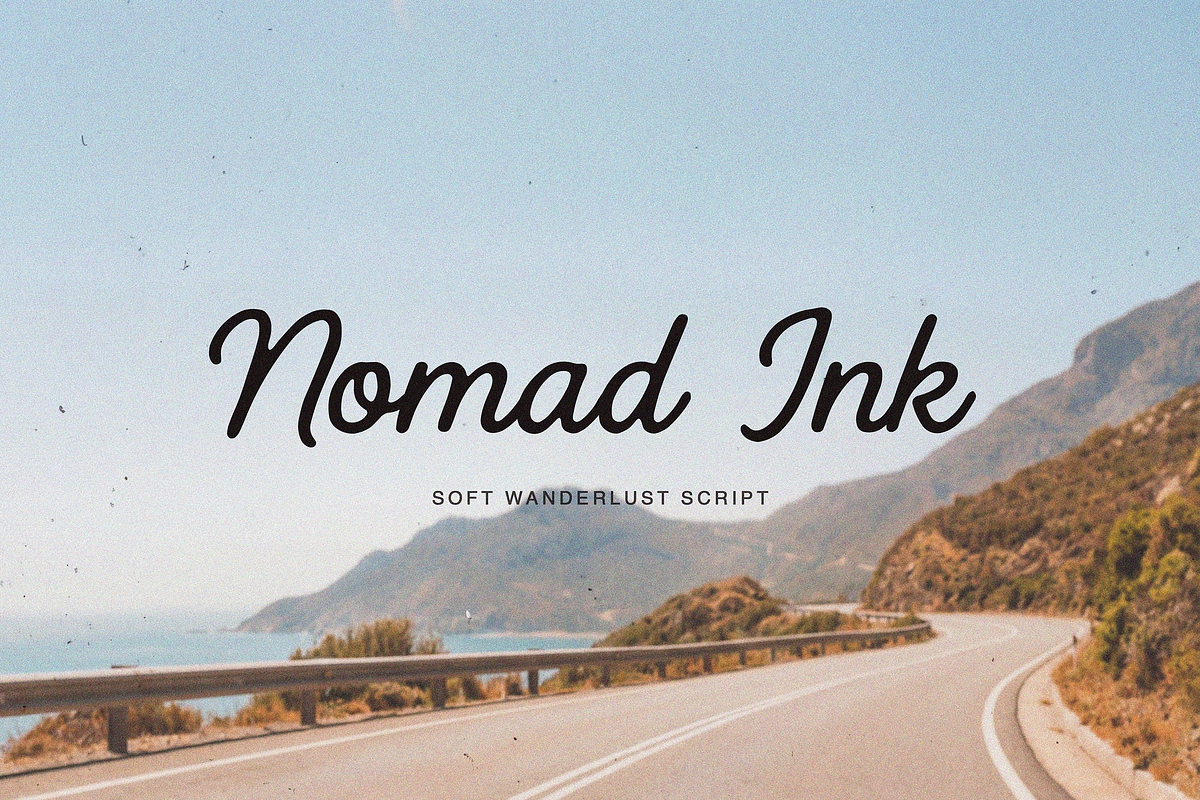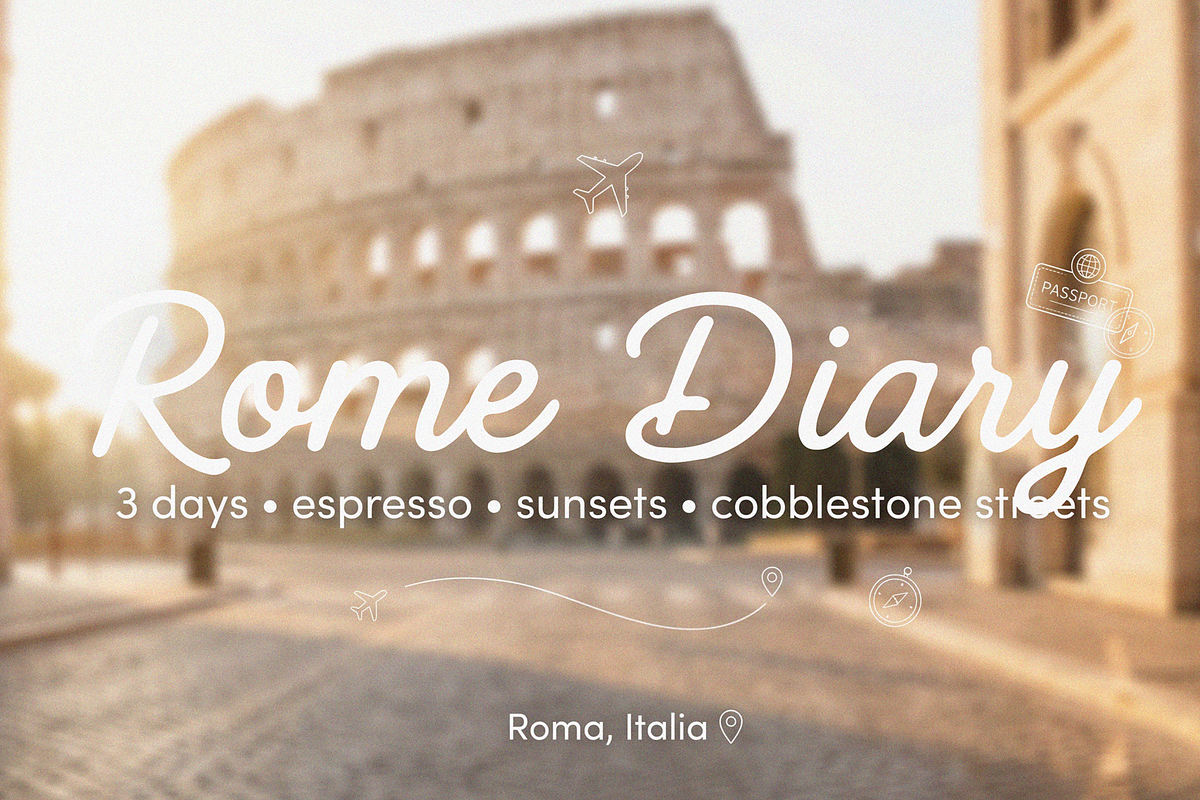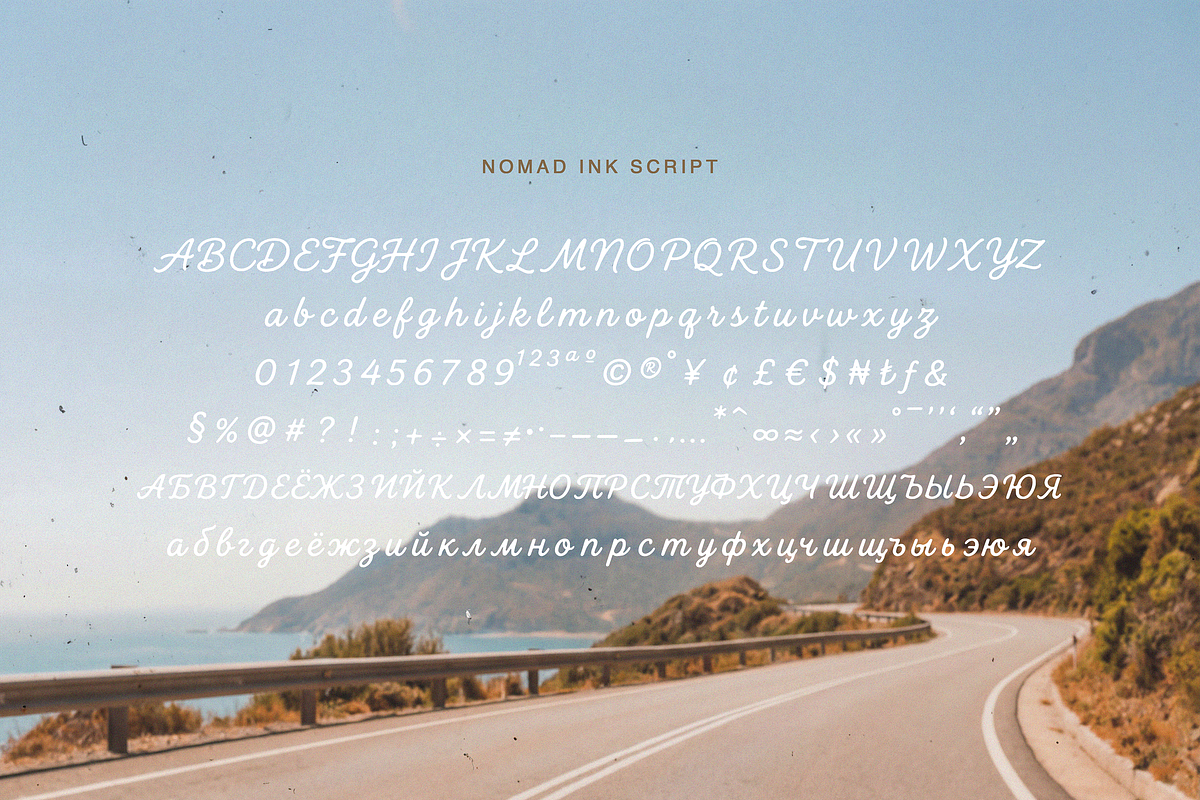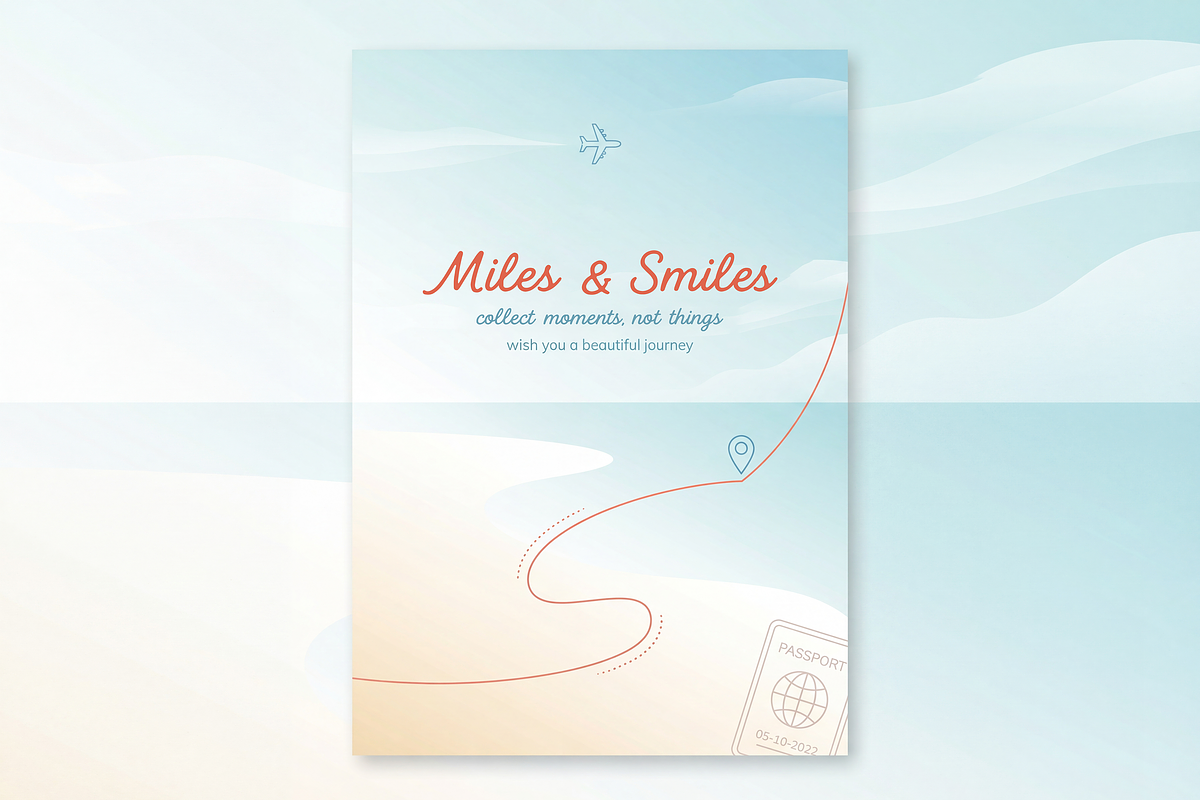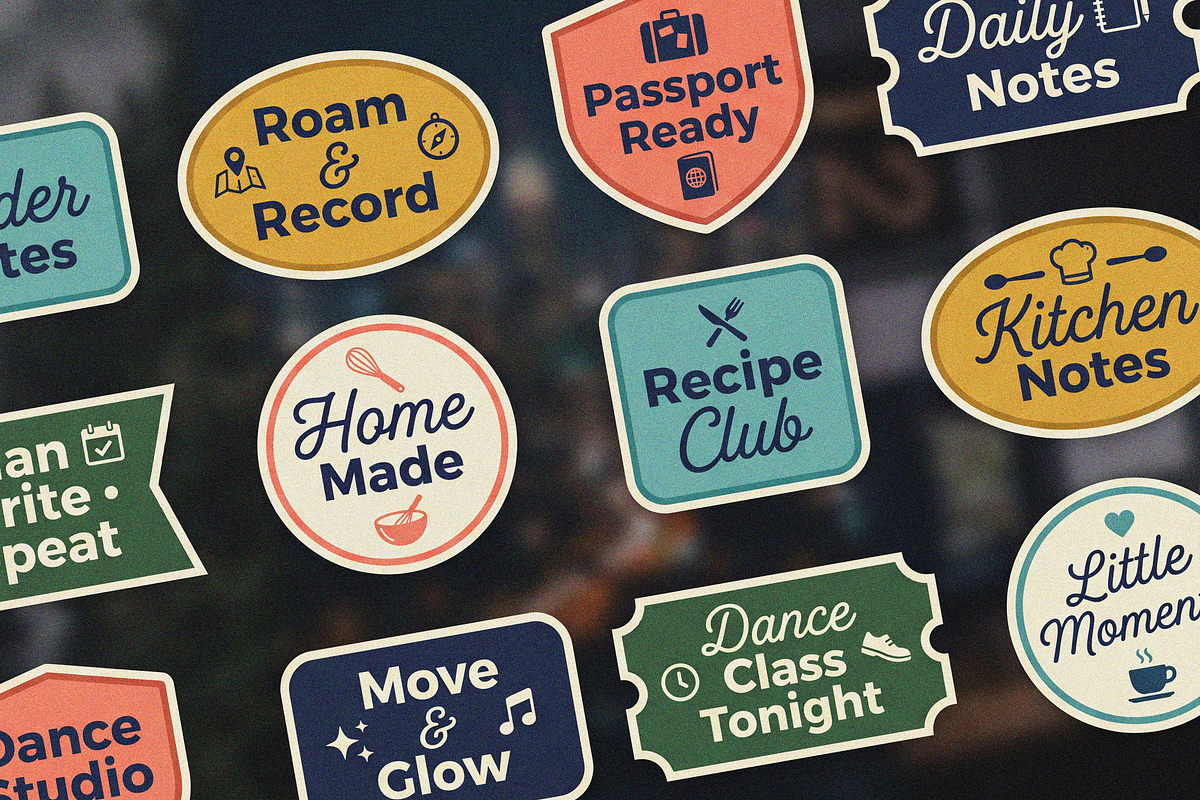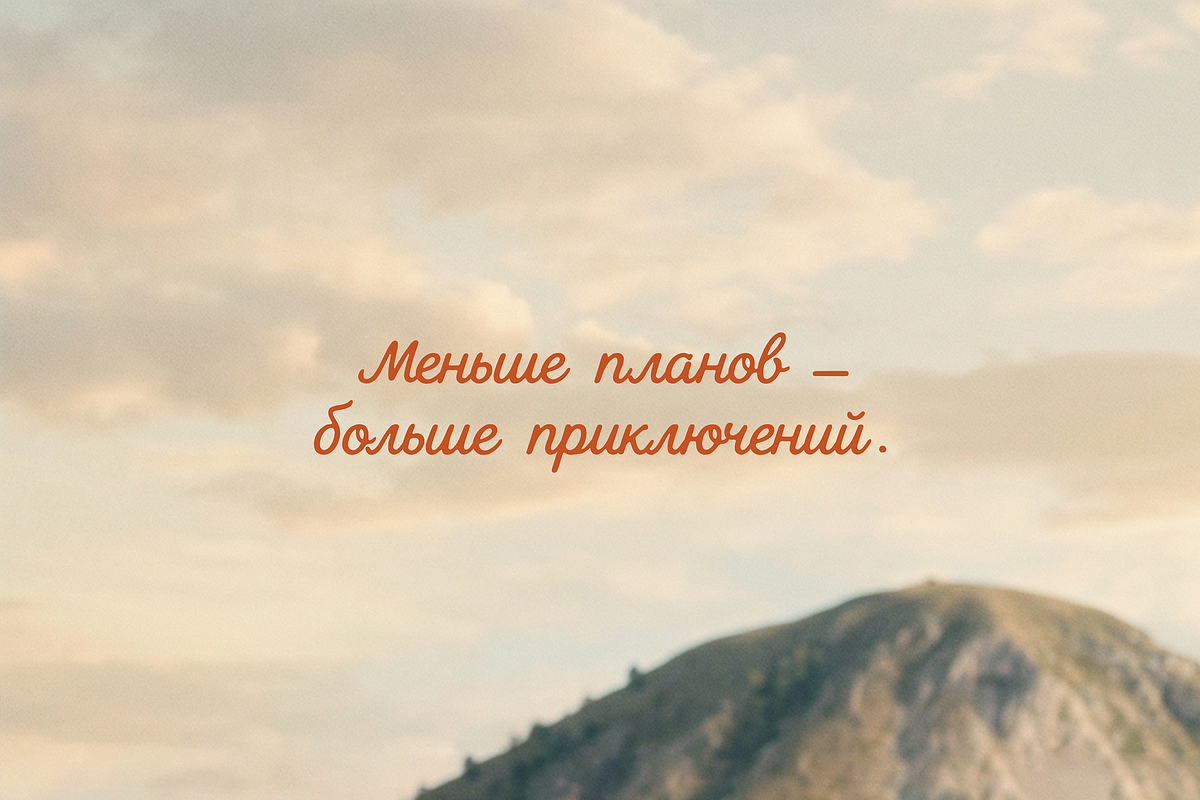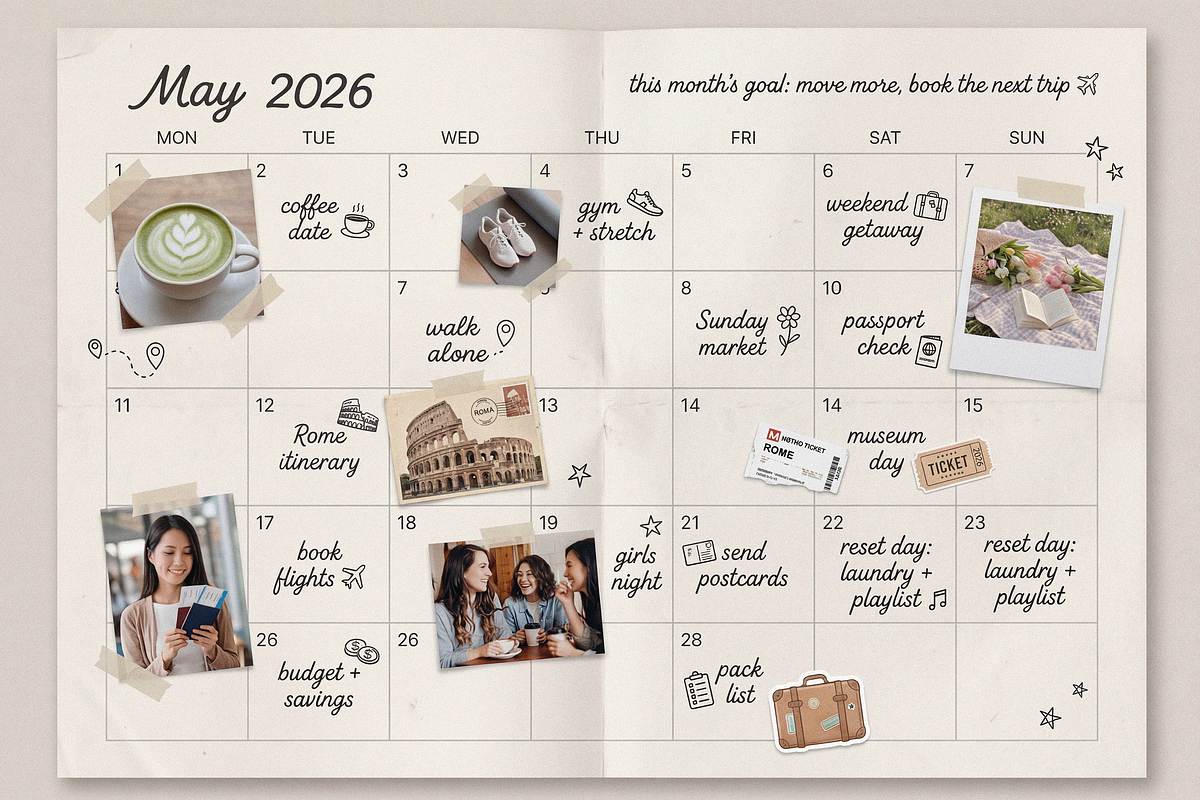
Nomad Ink — Soft Wanderlust Script
Nomad Ink is a modern handwritten script font inspired by freedom, travel, and spontaneous moments. Light, airy, and natural, this font is perfect for modern creatives who love minimal aesthetics, movement, and emotional typography.
Nomad Ink feels like notes written on the road — soft, personal, and effortlessly stylish.
- Travel branding & personal brands
- Instagram posts, stories & reels
- Quotes & inspirational designs
- Logos & wordmarks
- Journals, planners & notebooks
- Editorial layouts & web design
Language support:
- English
- Cyrillic
Nomad Ink works beautifully on photos, neutral backgrounds, and minimalist layouts. It adds warmth, personality, and a sense of freedom without overpowering your design.
Less plans - more adventures.